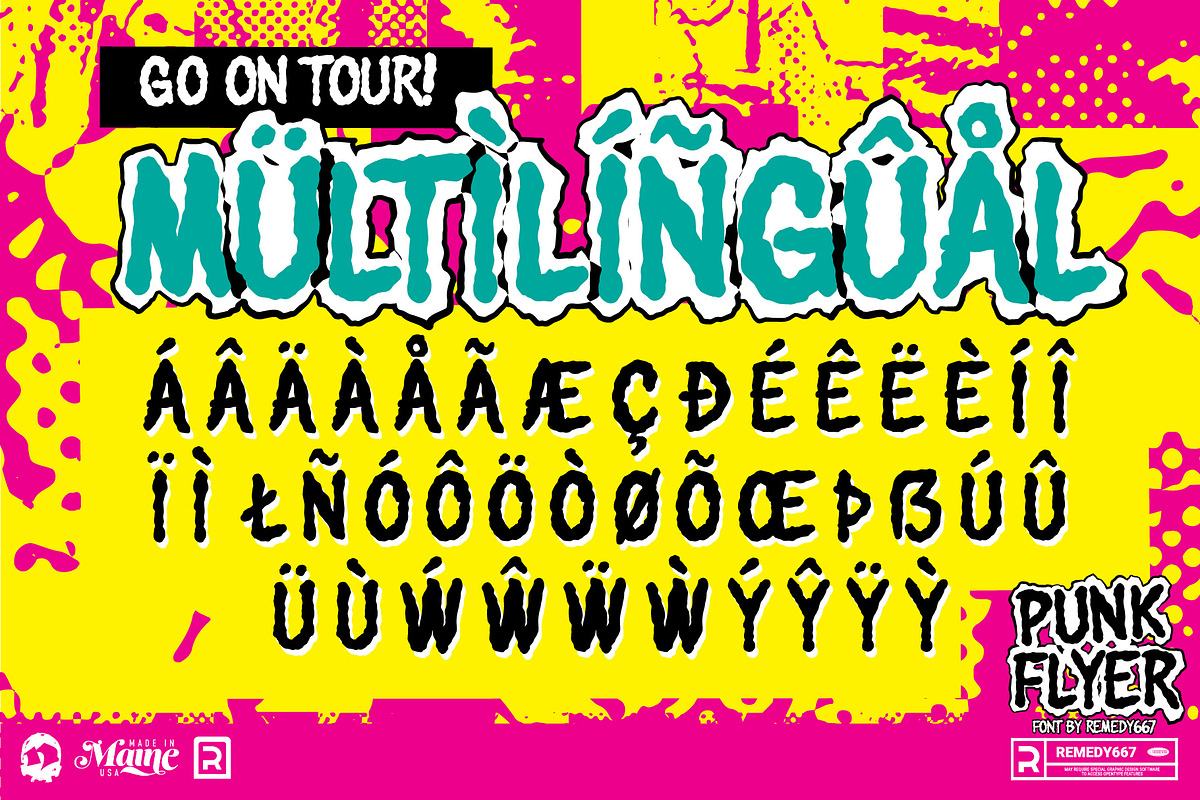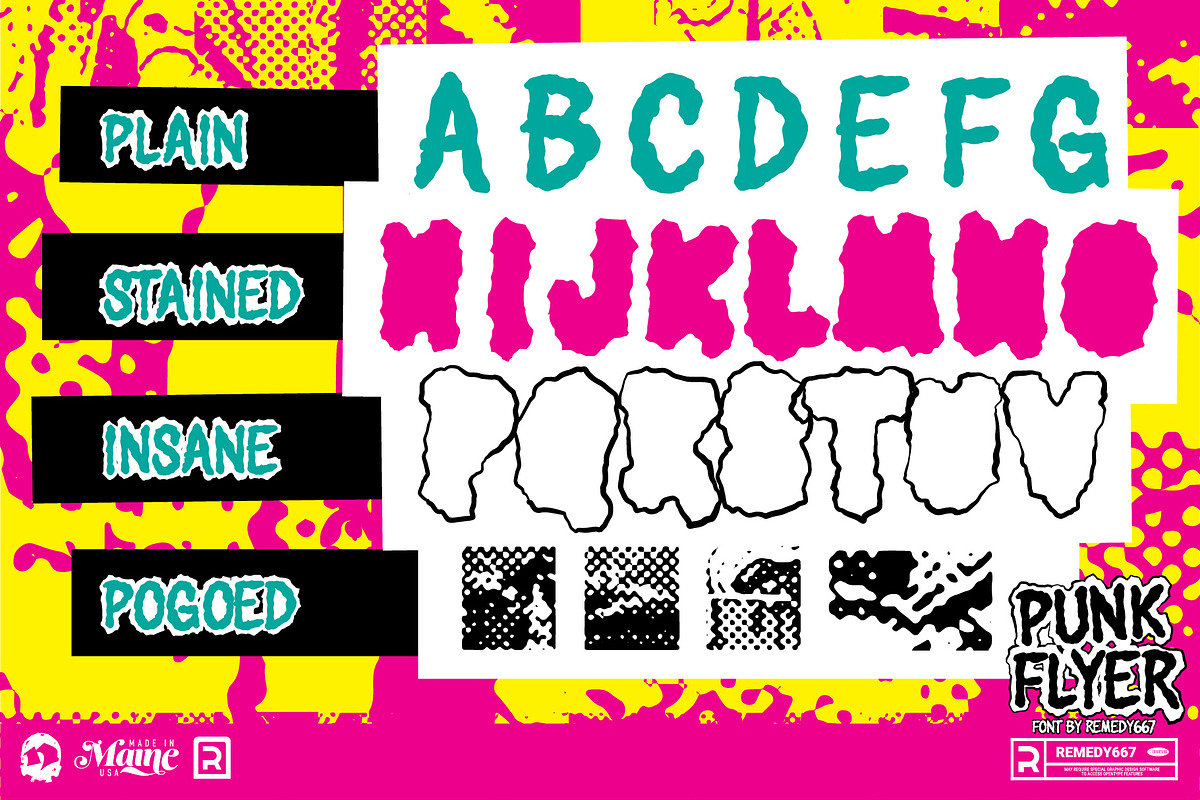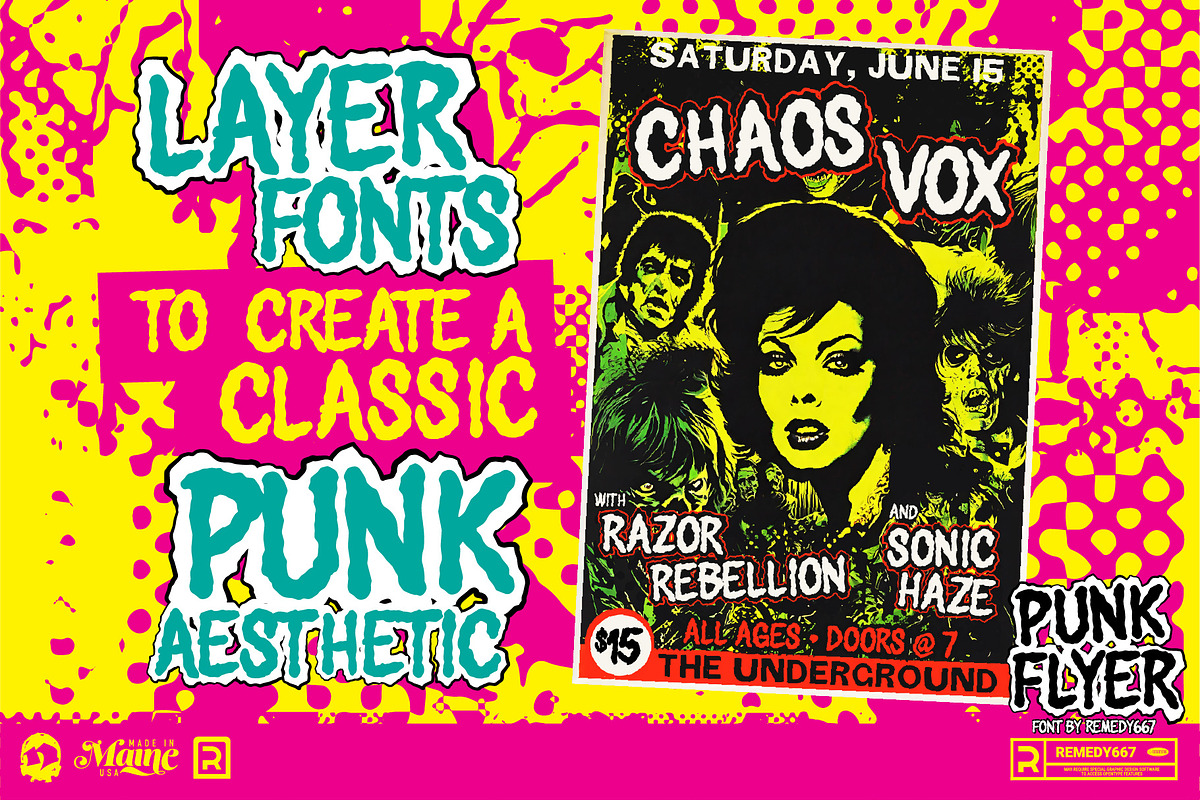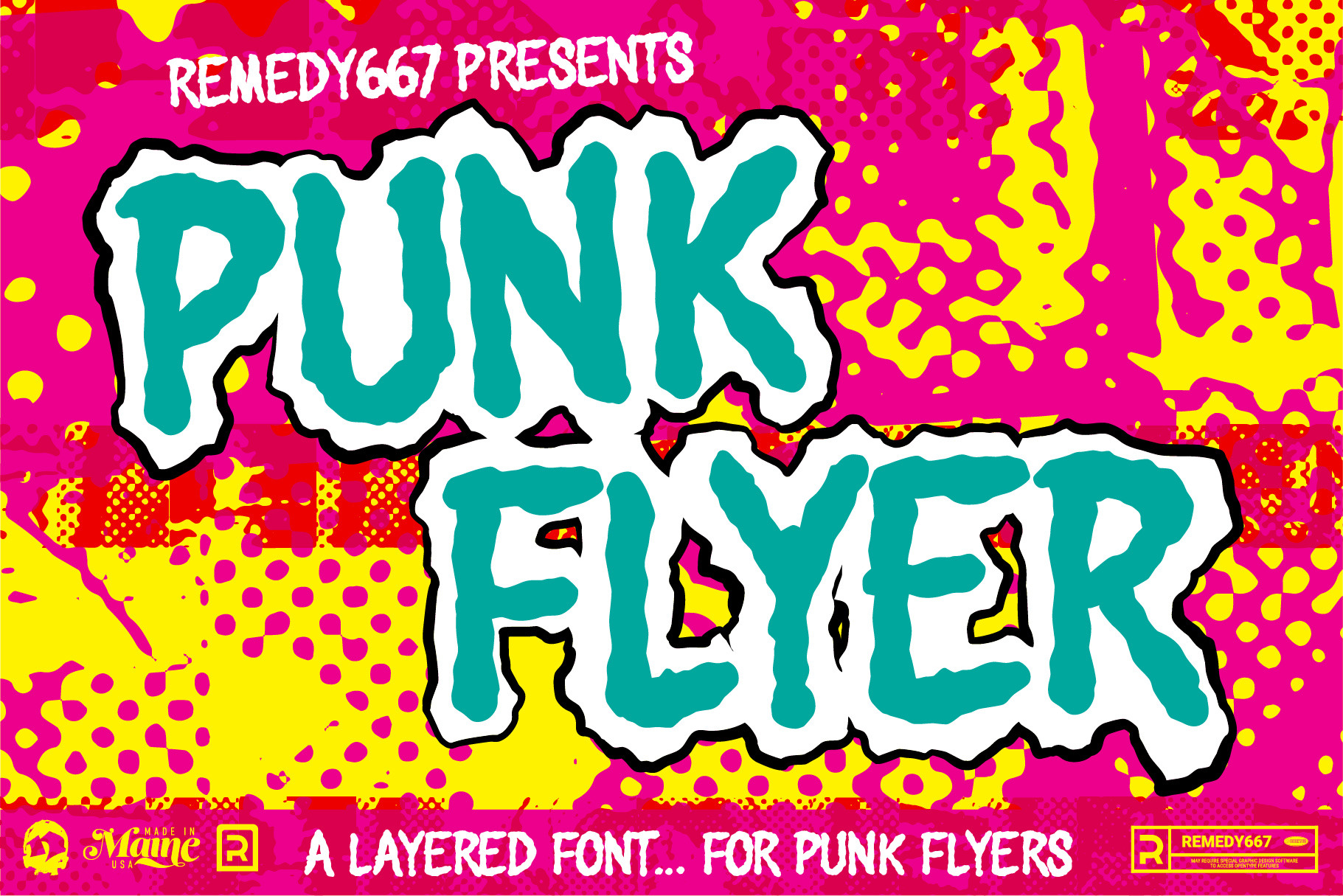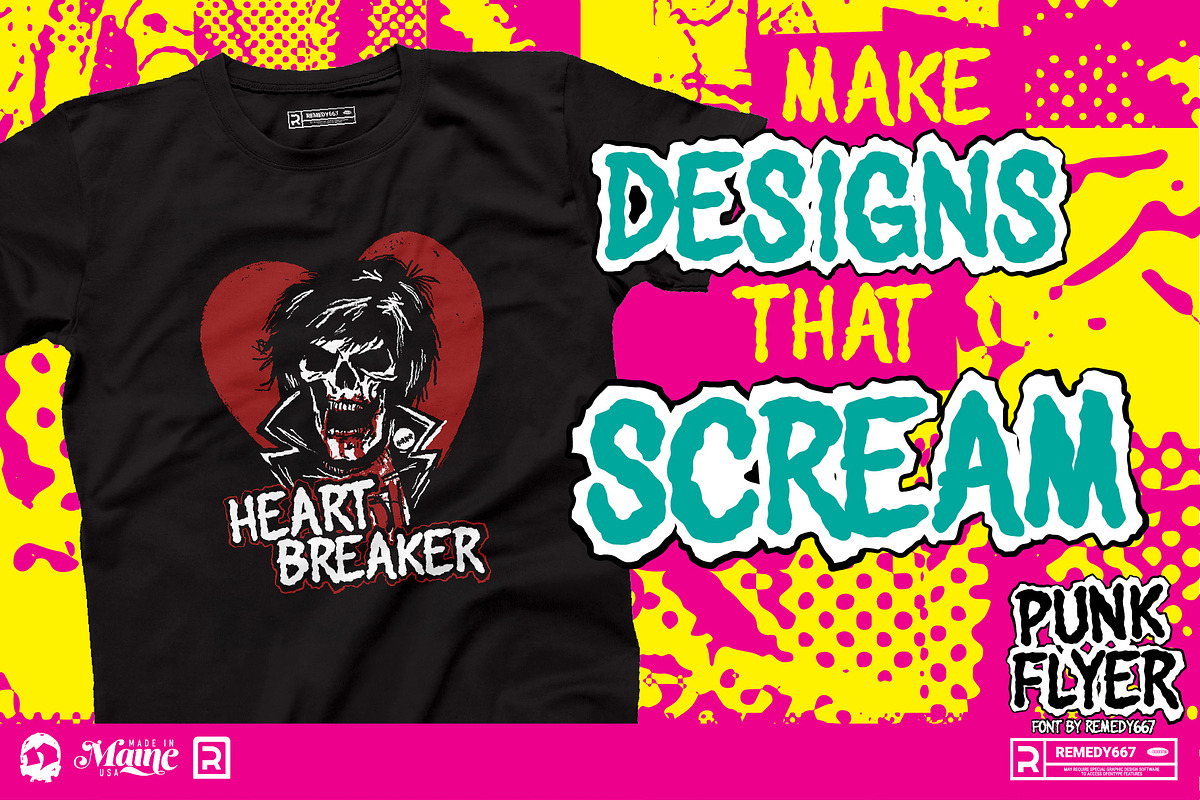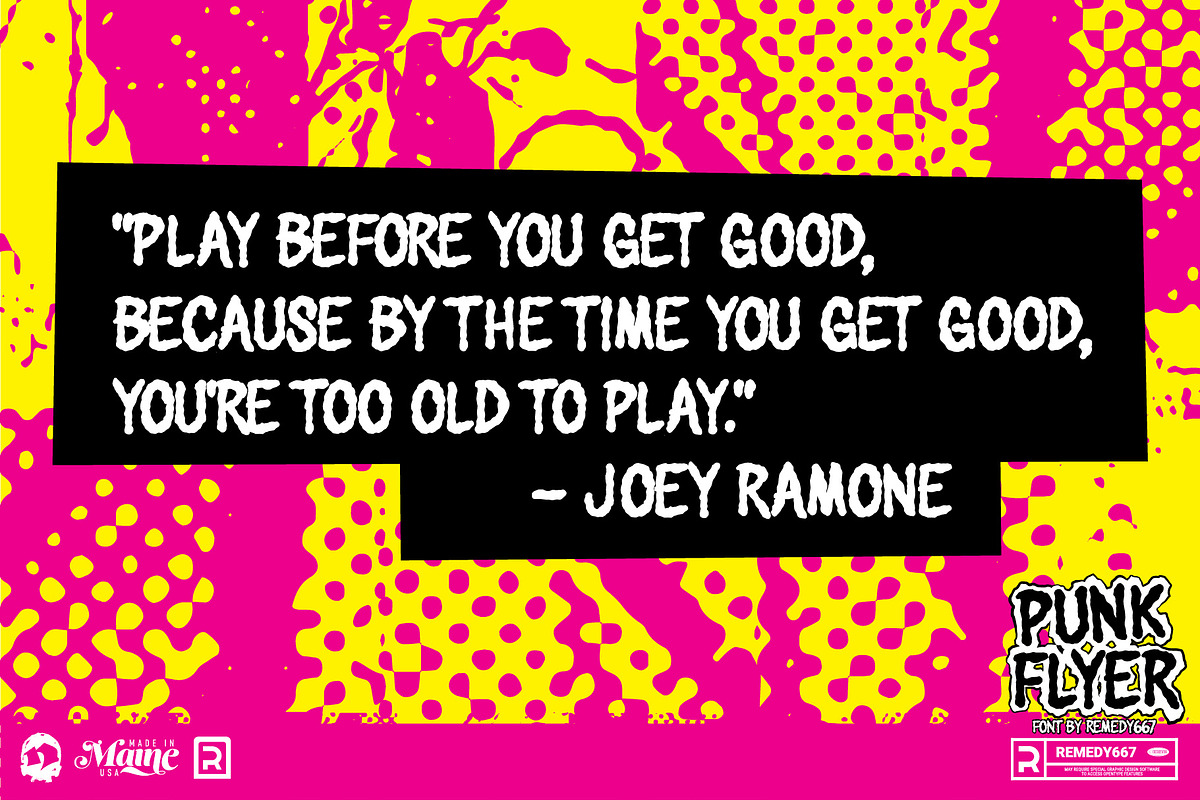
Punk Flyer - Zine Font
Want designs with a rebellious twist? Punk Flyer, the ultimate layered font for band posters, zines, album covers and artwork. Multiple fonts in Punk Flyer can be layered to effortlessly create a classic punk rock aesthetic that demands attention.
Don’t settle for ordinary fonts. Experiment with different combinations and effects. Whether you’re designing promotional materials for a show or just want raw eye-catching typography for your latest project, Punk Flyer will help you stand out from the crowd. Get ready to unleash your creativity and make an impact with this unique font that embodies the spirit of punk rebellion.
- Unleash your inner rebel with Punk Flyer, the ultimate font collection for those who dare to stand out.
- Featuring 5 edgy fonts designed to be layered and create a unique visual impact.